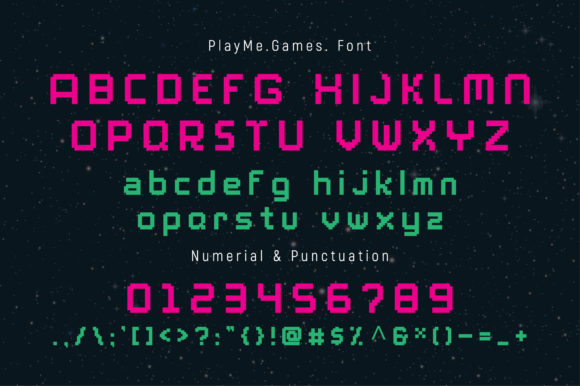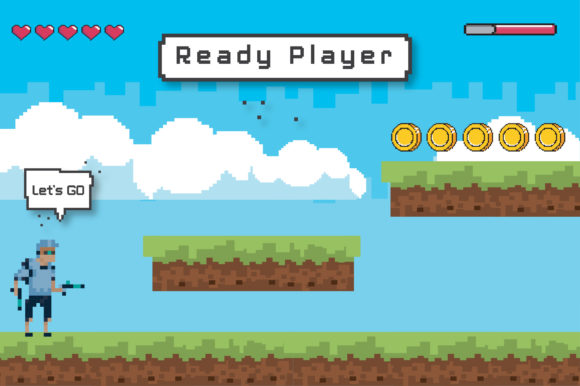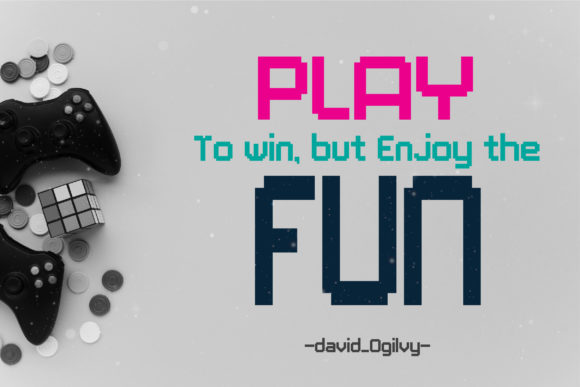
Introduction to PlayMe.Games. Font
PlayMe.
Games is a pixel style font available in all caps and small caps.
Key Features of PlayMe.Games. Font
Why Choose PlayMe.Games. Font?
PlayMe.Games. Font offers exceptional quality and versatility, making it a valuable addition to your design toolkit. Whether you’re creating for personal projects or commercial use, PlayMe.Games. Font delivers professional results.